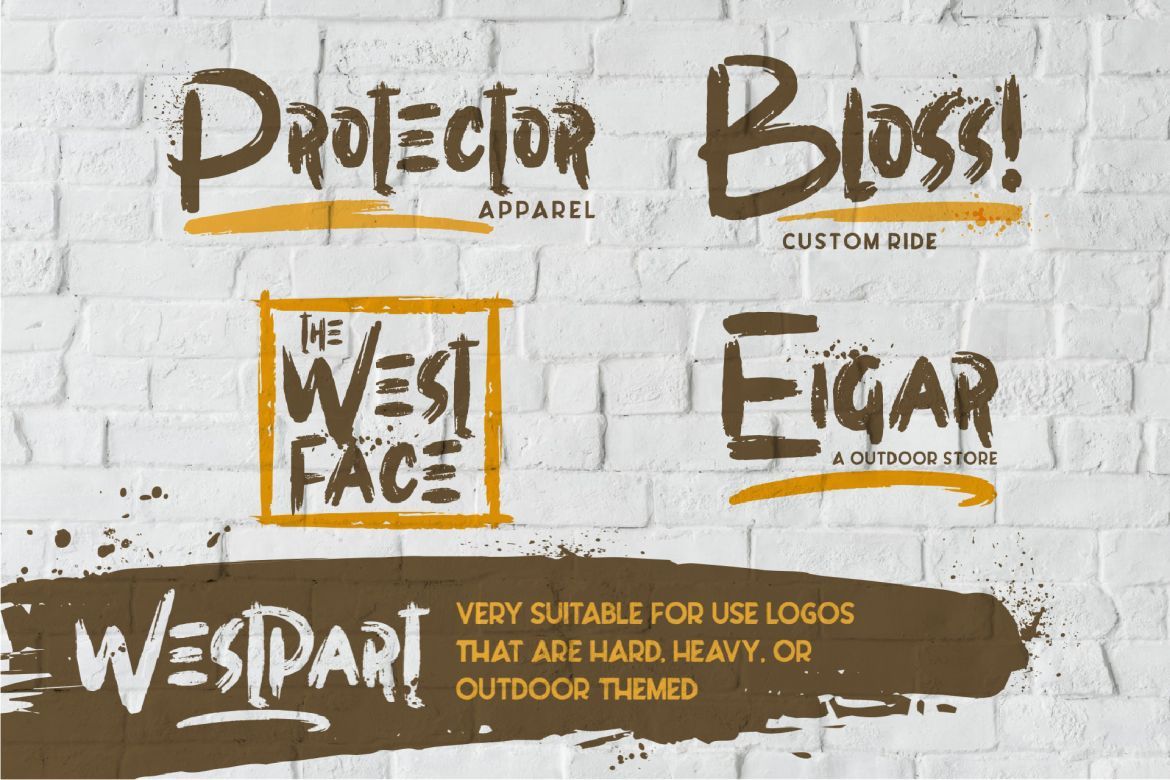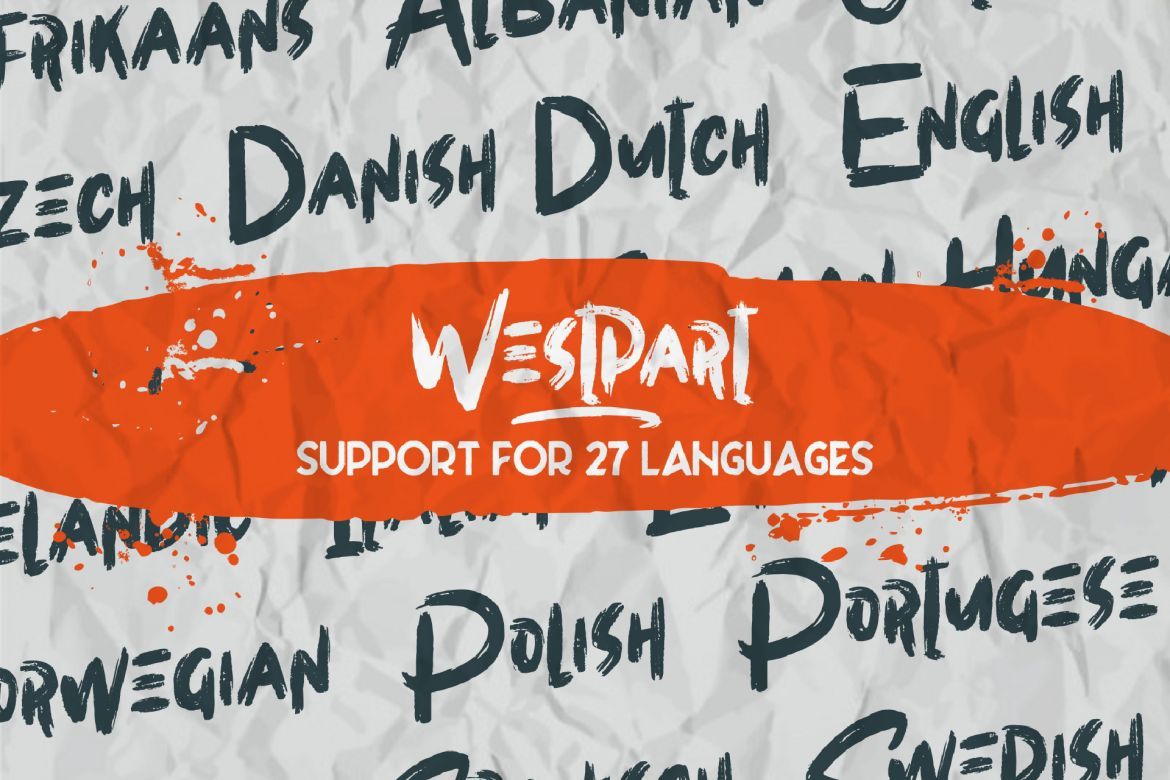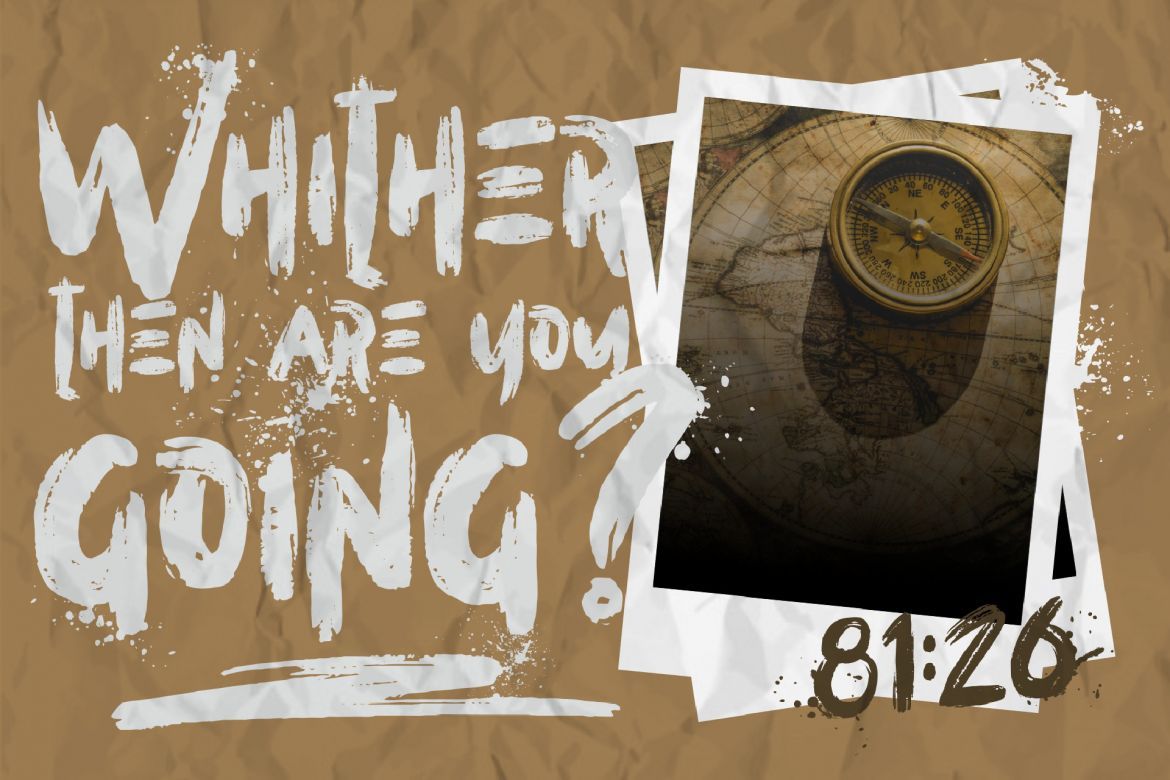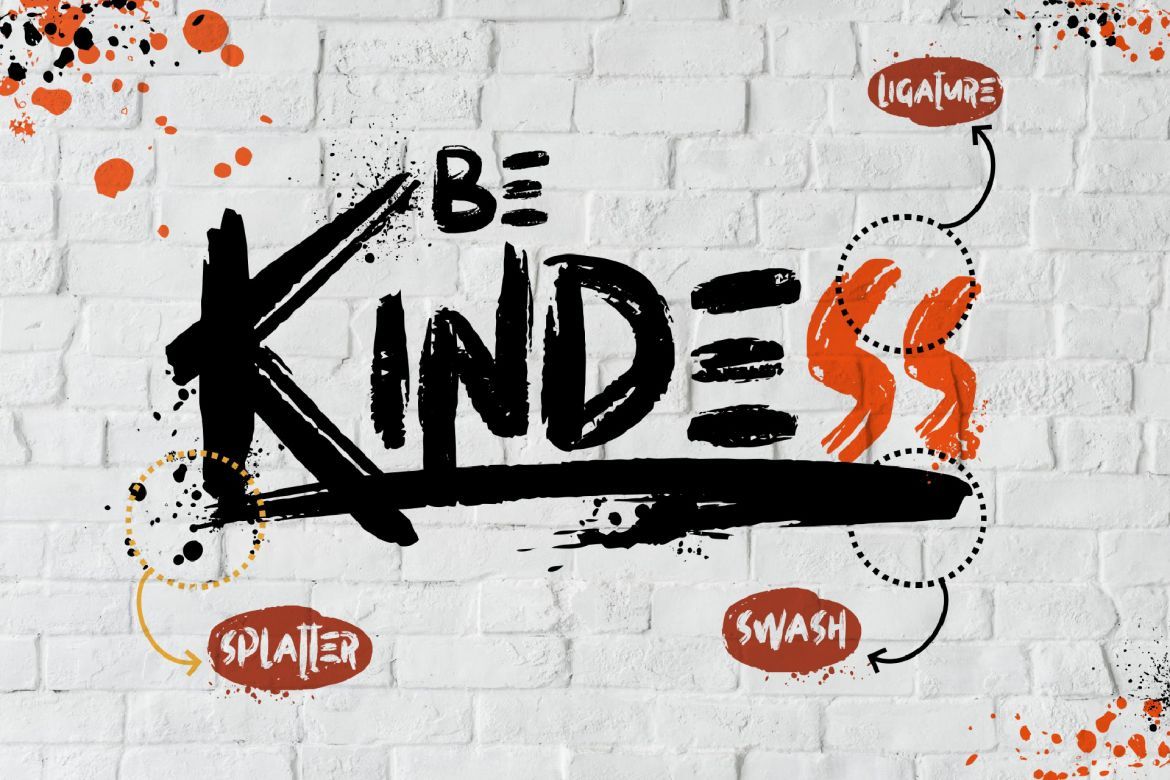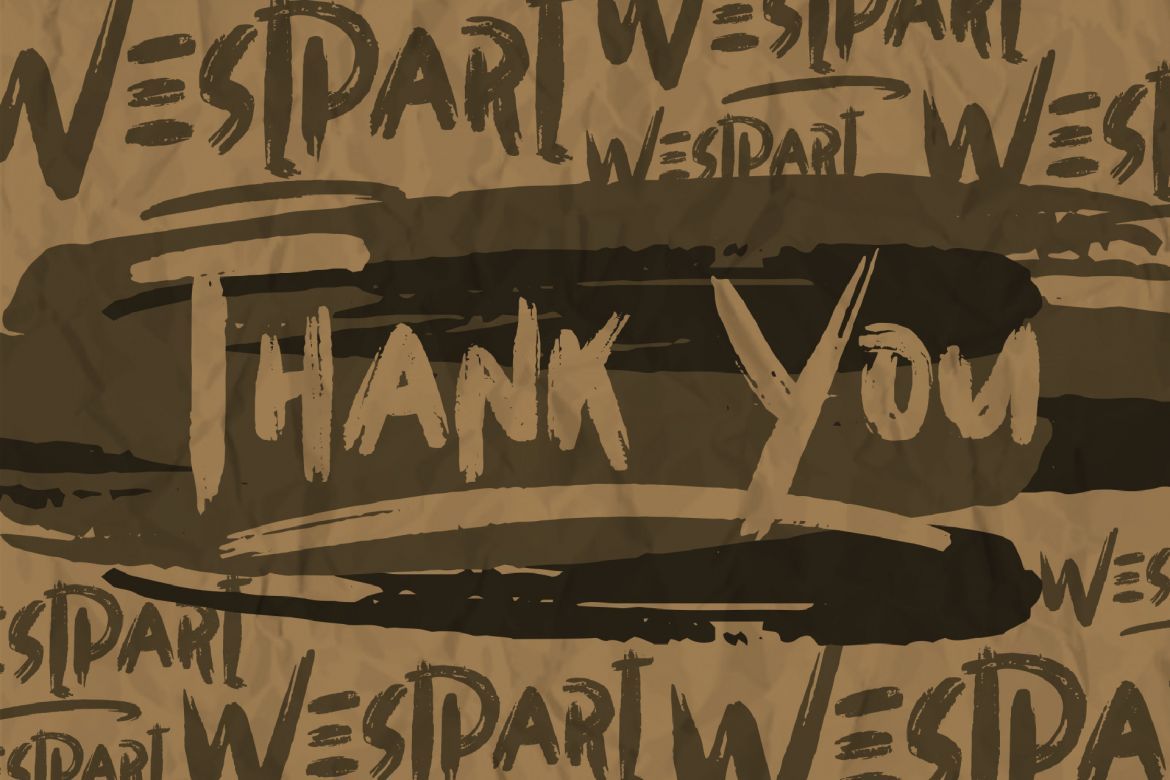
Westpart - Handbrush Font
Westpart was born from the previous three brush fonts: 1. Northen, 2. Easttalia & 3. Southen. This font is part of the 4 directions that cannot be separated. has a style brush that is very different from before. Because the Westpart has its own advantages. Westpart has a bonus splatter, ligature, and swash that has a very detailed brush effect.
• bonus splatter & swash